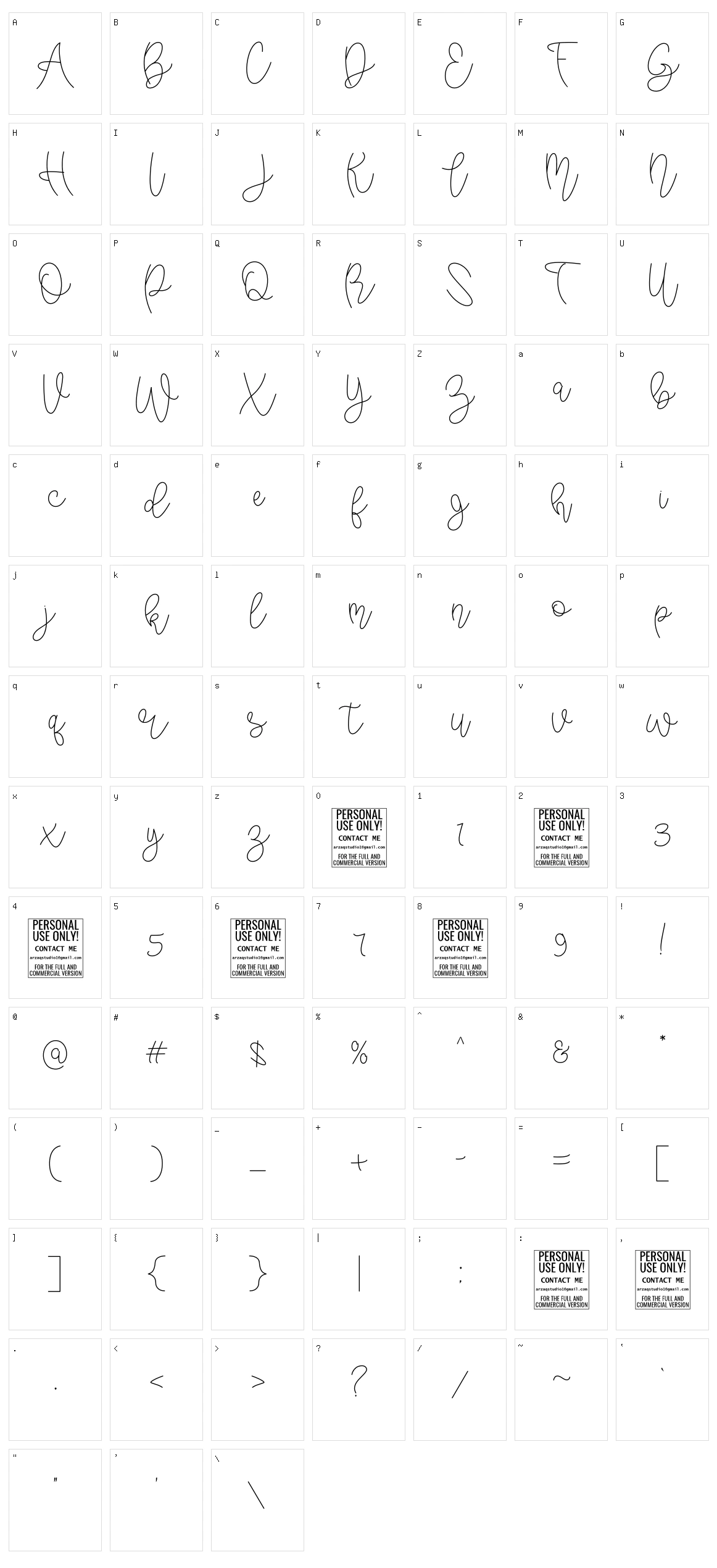
The free font Water Splash Monoline is carefully designed by Miftah Arzaq, showcasing a thoughtful balance of creativity and usability and falls under the Script font style. When you download the ZIP file, it contains only 538.62 KB of font files, making it lightweight and quick to download. Please review the license details below to understand permitted usage and distribution rights. If license information is not available, we recommend using this font for personal projects only or contacting the author directly for commercial usage permissions.